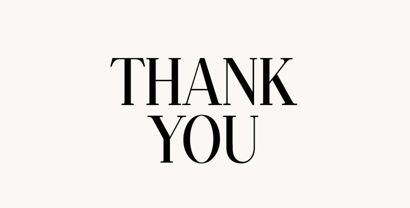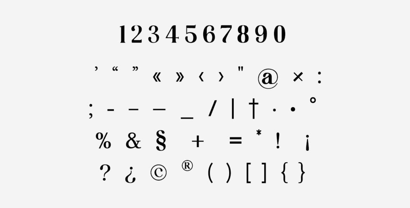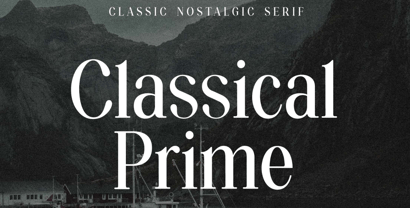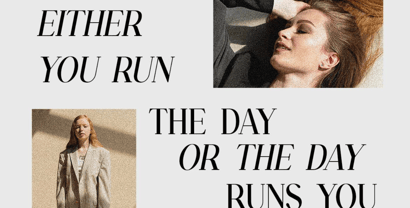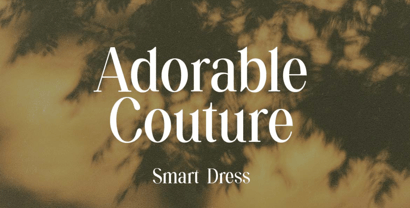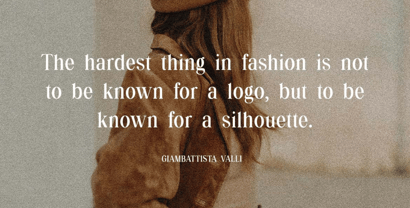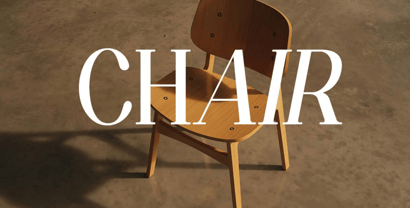
Classical Prime
by UICreative
The Classical Prime Font Family was designed by Hero and published by UICreative. Classical Prime contains 2 styles and family package options.
Introducing our new product the name is Classical Prime. Classical Prime stands as a distinguished typographic homage to the golden age of print design, meticulously crafted to evoke the timeless elegance of vintage typography while meeting contemporary design standards. This exceptional serif typeface transports viewers to an era of refined craftsmanship, offering designers a powerful tool for creating work that resonates with historical gravitas and nostalgic warmth. The font's carefully constructed letterforms capture the essence of classical typography, featuring balanced proportions and thoughtful detailing that speak to traditionalists and modern designers alike.
Drawing inspiration from revered classical typefaces like Baskerville, Bembo, and Bodoni, Classical Prime achieves a perfect balance between historical authenticity and modern functionality. Its elegant serifs and subtle stroke variations create a rhythm that enhances readability while maintaining the distinctive character that makes vintage typography so appealing. The typeface's thoughtful design incorporates subtle imperfections and warm characteristics that mimic the charm of letterpress printing, adding depth and authenticity to digital and print applications. ,
Classical Prime excels in contexts where designers seek to establish connections with heritage, tradition, and timeless quality. Its versatility makes it ideal for editorial design, luxury branding, wedding stationery, historical publications, and cultural institutions looking to communicate with sophistication and authenticity. The font's ability to evoke nostalgia without sacrificing legibility or contemporary relevance makes it particularly valuable for projects that bridge past and present, offering a typographic voice that resonates with audiences seeking both emotional connection and visual excellence.
Classical Prime Features:
• Authentic Vintage-Inspired Serif Design
• Meticulously Balanced Letterforms with Historical Character
• Complete Character Set with Extended Latin Support
• Carefully Crafted Ligatures and Period-Appropriate Stylistic Alternates
• OpenType Features for Advanced Typography Control
• Old-Style Figures and Lining Numerals
• Small Caps for Traditional Typography Applications
• Swash Capitals and Decorative Flourishes
• Optimized Kerning for Elegant Text Setting
The Classical Prime font represents a masterful synthesis of typographic history and contemporary design needs, offering creators a versatile tool that communicates with authenticity and elegance. Its thoughtful design captures the warmth and character of vintage typography while maintaining the technical excellence required for modern applications. For designers seeking to infuse their work with timeless sophistication and nostalgic charm, this font provides an invaluable resource that honors typographic traditions while embracing the possibilities of contemporary design.
Designers: Hero
Publisher: UICreative
Foundry: UICreative
Design Owner: UICreative